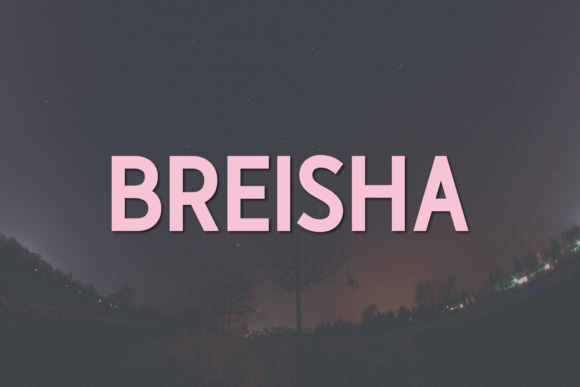
Introducing Breisha Font: Elevate Your Designs with Modern Elegance
In the world of typography, a font can make all the difference in the aesthetic and effectiveness of a design. For designers and crafters looking for a modern, classy sans serif typeface, Breisha Font is an exceptional choice. This versatile font is designed to meet the needs of various projects, from logos and weddings to invitations, quotes, advertisements, and more.
What is Breisha Font?
Breisha is a contemporary sans serif typeface that features upper characters, numbers 0-9, and a range of punctuation and symbols. Its clean lines and modern look make it perfect for designs that require a touch of elegance and sophistication. Whether you’re working on a logo, a wedding invitation, or a magazine layout, Breisha Font is an excellent option to consider.
Key Features of Breisha Font
- Upper Characters: Breisha Font includes a full set of upper characters, allowing you to create stunning headlines and titles.
- Numbers 0-9: The font features a range of numbers, making it suitable for designs that require numerical information.
- Punctuation and Symbols: With a variety of punctuation marks and symbols, Breisha Font provides everything you need to create comprehensive and detailed designs.
- Versatility: This font is incredibly versatile, making it perfect for a wide range of applications, from print materials to digital designs.
Use Cases for Breisha Font
Breisha Font is an excellent choice for various design projects, including:
- Logos: Create a lasting impression with a modern and classy logo that incorporates Breisha Font.
- Weddings and Invitations: Add a touch of elegance to your wedding invitations, save-the-date cards, and other stationery with Breisha Font.
- Quotes and Advertisements: Use Breisha Font to create eye-catching quotes and advertisements that grab attention.
- Print and Magazines: Breisha Font is perfect for magazine layouts, brochures, and other print materials that require a modern and sophisticated look.
Benefits of Using Breisha Font
By choosing Breisha Font for your design projects, you can:
- Enhance Your Designs: Add a touch of modern elegance to your designs with Breisha Font’s clean lines and sophisticated look.
- Increase Versatility: Use Breisha Font across various design projects, from logos to print materials, and enjoy its flexibility.
- Save Time: With Breisha Font’s comprehensive character set, you can complete your designs quickly and efficiently.
Breisha Font is an exceptional choice for designers and crafters looking for a modern, classy sans serif typeface. Its versatility, comprehensive character set, and elegant look make it perfect for a wide range of design projects. Whether you’re working on a logo, wedding invitation, or magazine layout, Breisha Font is sure to elevate your designs and leave a lasting impression.